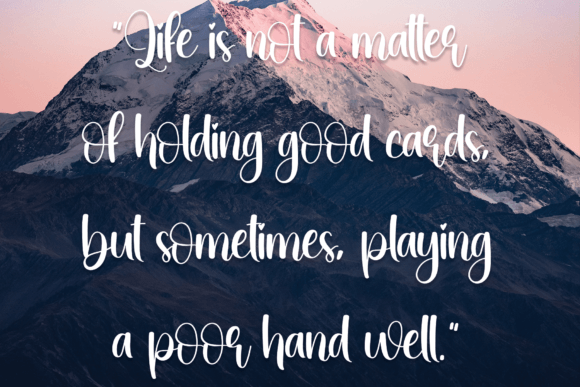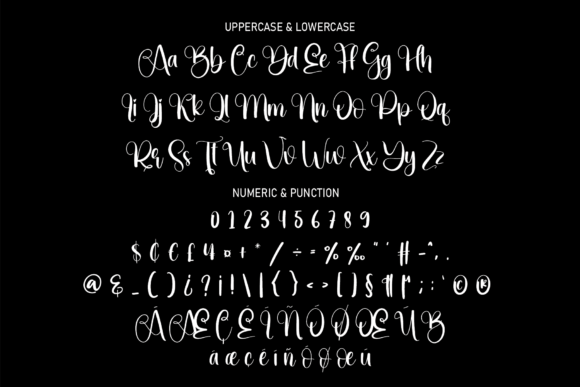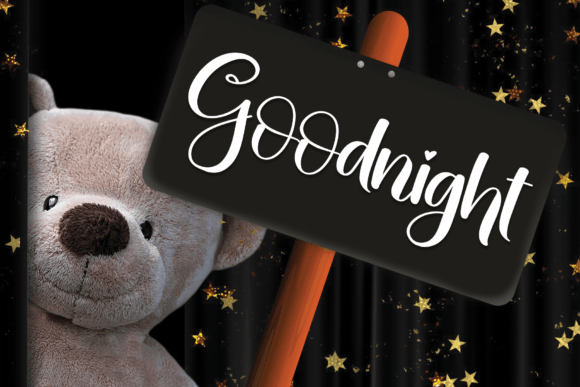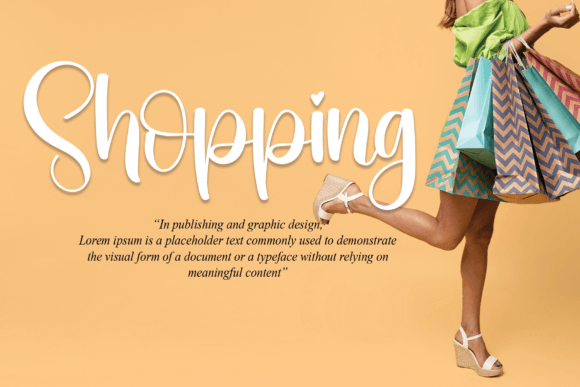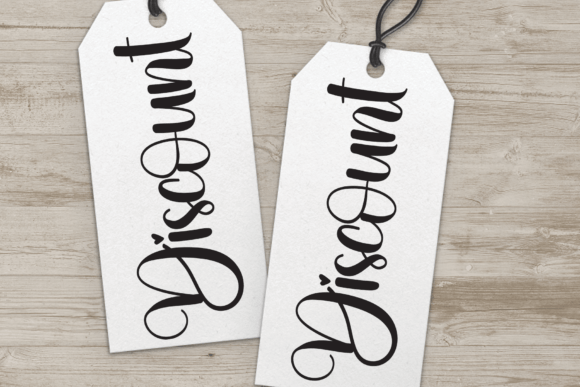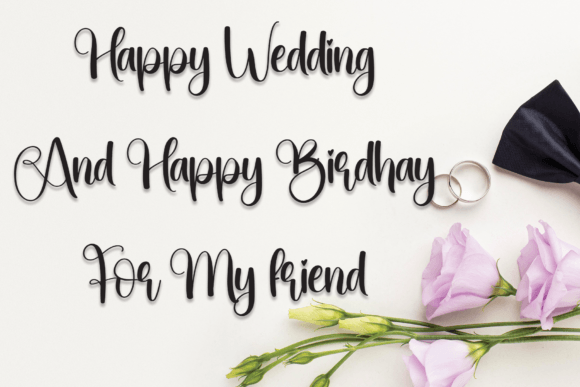
The Bisney Font: A Classy Calligraphic Script to Elevate Your Designs
Have you ever been in the middle of a design project, and suddenly, you’re stuck on finding the perfect font? I recall a recent experience where I was working on a branding project for a luxury client, and I just couldn’t find a font that screamed elegance and sophistication. That’s when I stumbled upon the Bisney font, and it completely transformed my design. In this article, I’ll share my love for this beautiful handwritten script font, its features, and how to make the most of it in your designs.
A Personal Love Affair with Bisney
Bisney is a cool and neat handwritten script font that maintains its classy calligraphic influences while feeling contemporary and fresh. It’s the perfect blend of traditional and modern design elements. When I first laid eyes on Bisney, I was immediately drawn to its elegant strokes, beautiful letterforms, and the way it seemed to dance across the page. It’s like finding that one perfect brush stroke that makes your entire design come alive! ✨
An Honest Review of Bisney
What I Love About Bisney
• 💫 Elegant and sophisticated: Bisney exudes luxury and refinement, making it perfect for high-end branding projects.
• ✅ Versatile: This font is suitable for a wide range of design applications, from logos and headings to packaging and advertising.
• ✨ Contemporary feel: Bisney’s modern twist on traditional calligraphy makes it stand out from more traditional script fonts.
• 📝 Highly legible: Despite its elegant nature, Bisney remains clear and easy to read, even at smaller sizes.
While Bisney is an exceptional font, there are a few minor considerations to keep in mind. For instance, due to its intricate design, Bisney may not be the best choice for very small font sizes or body text. Additionally, some of the more decorative elements might not display correctly on all devices or platforms. ⚠️
Another thing to consider is that Bisney is a script font, and as such, it may not be suitable for designs that require a more formal or rigid tone. However, for most creative projects, Bisney’s unique charm and character will shine through. 🤔
The Backstory of Bisney
Bisney was created with the intention of blending traditional calligraphy with modern design sensibilities. The designer aimed to craft a font that would be both elegant and approachable, making it suitable for a wide range of creative projects. While the actual origins of Bisney might be shrouded in mystery, its timeless beauty and versatility have undoubtedly captured the hearts of designers worldwide.